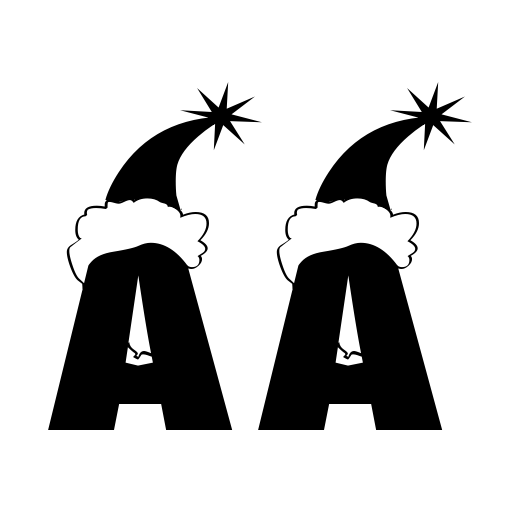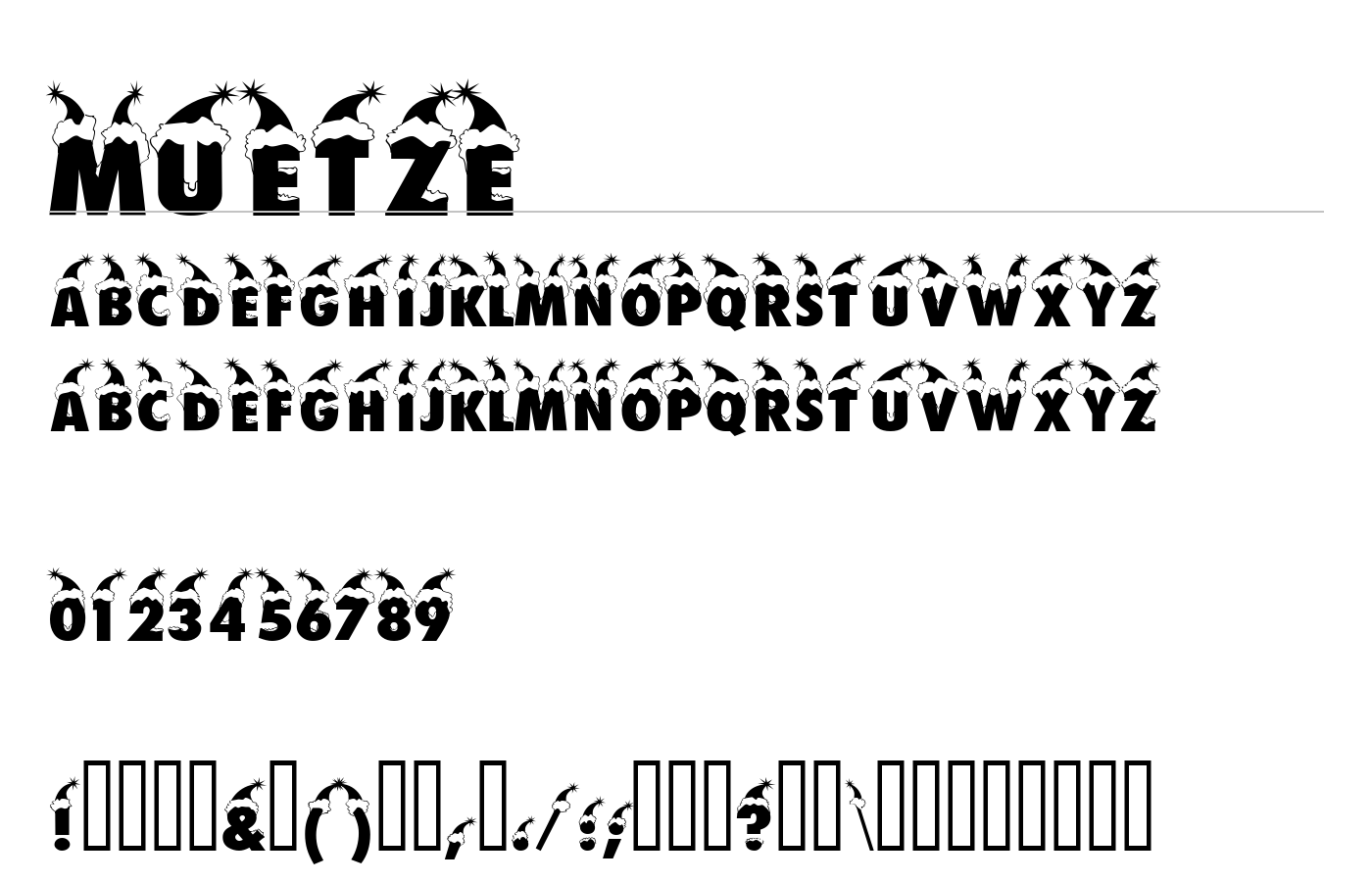
Bonnet is a bold, playful display font featuring chunky, sans serif letterforms adorned with festive Santa hats and starbursts, giving it a cheerful holiday vibe. Its heavy weight and decorative elements make it ideal for seasonal headlines, party invitations, and festive branding where a fun, eye-catching style is desired. This font works best in large sizes to showcase its unique holiday details and bring a joyful spirit to any winter-themed design.
Bonnet Font